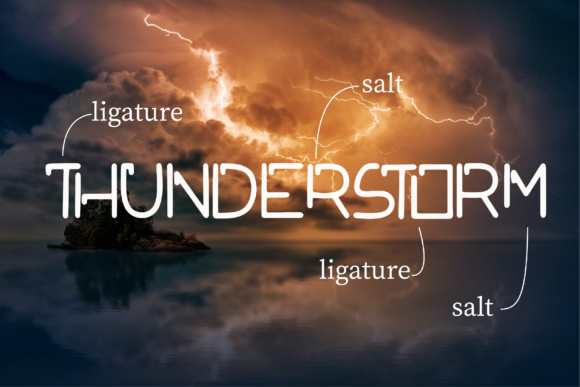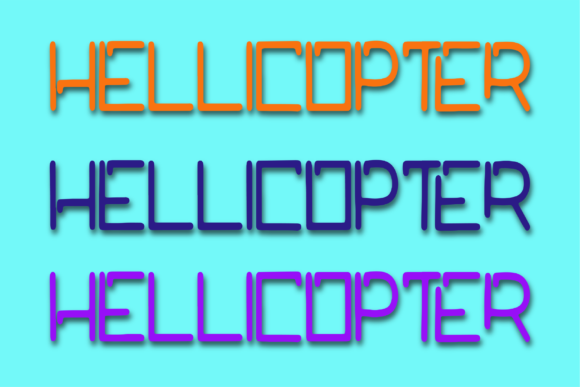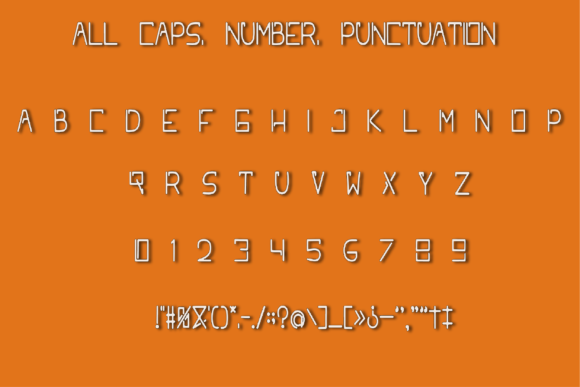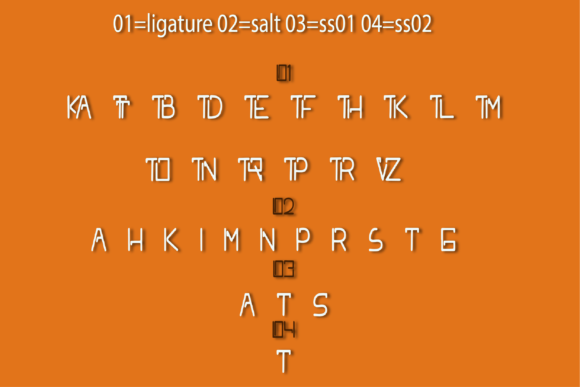
The Perfect Typography for Your Next Creative Project
Have you ever stared at a blank canvas, struggling to find the right words to bring your vision to life? We’ve all been there – searching for that elusive combination of style and substance to make our designs truly pop. And then, it hits you: the perfect font.
Enter the Astra Modern Font, a game-changing display font that’s about to revolutionize the way you think about typography. With its sleek, modern design and endless possibilities, this font is the ultimate tool for designers looking to make a statement. Whether you’re creating a poster, flyer, or print piece, the Astra Modern Font is sure to elevate your work to new heights.
What sets the Astra Modern Font apart is its PUA encoding, which allows for seamless access to all glyphs and swashes. This means you can unleash your creativity without worrying about limitations – the perfect font for designers who crave flexibility and style.
- Font Family: Astra Modern Font
- Character Count: 850+ glyphs, including Latin, Cyrillic, and Greek alphabets
- Unique Characteristics: Geometric sans-serif design, optimized for digital use, suitable for branding, signage, and editorial content
First of all, I want to say that I was really excited to try out the Astra Modern Font. As a designer, I’m always on the lookout for fresh and modern fonts to use in my projects, and this one definitely delivers.
- ✨ The font has a sleek and sophisticated feel to it, making it perfect for use in high-end branding and advertising materials.
- ✨ The font is highly customizable, with a wide range of weights and styles to choose from, making it easy to find the perfect fit for your project.
- ✨ The font is also highly legible, making it easy to read even in small sizes.
- ⚠️ The font can be a bit too uniform and lacks some of the character and personality that some designers might be looking for.
- ⚠️ The font may not be suitable for use in projects where you want to convey a more casual or playful vibe.
Overall, I think the Astra Modern Font is a solid choice for designers who are looking for a modern and sophisticated font to use in their projects. While it may not be perfect for every project, I think it’s a great addition to any designer’s toolkit.
For optimal results, use Astra Modern Font for titles, headings, and body text in modern and minimalist designs.
Avoid using Astra Modern Font for small text or in situations where readability is compromised.
Combine Astra Modern Font with clean and simple graphics to create a cohesive and stylish design.